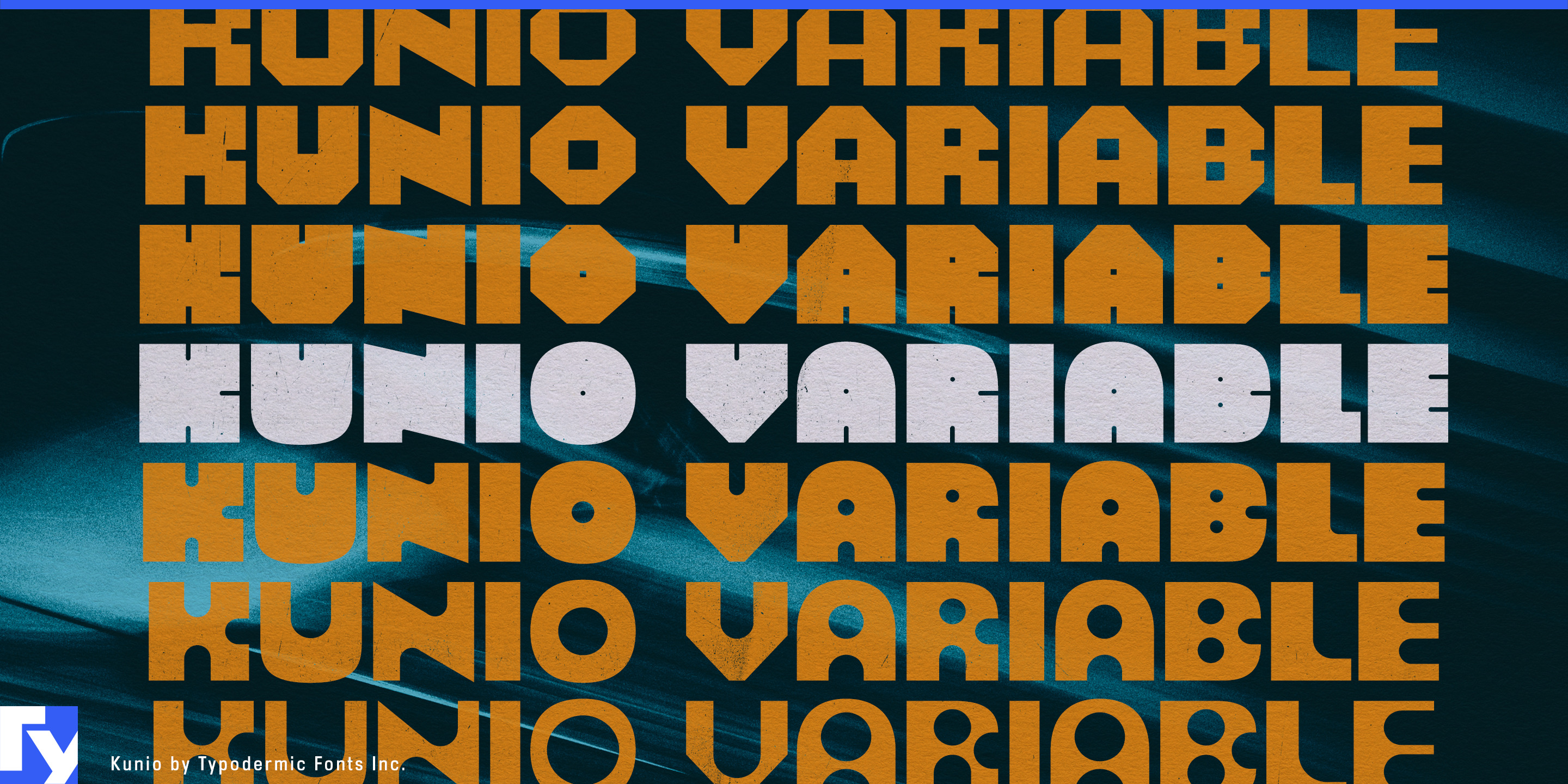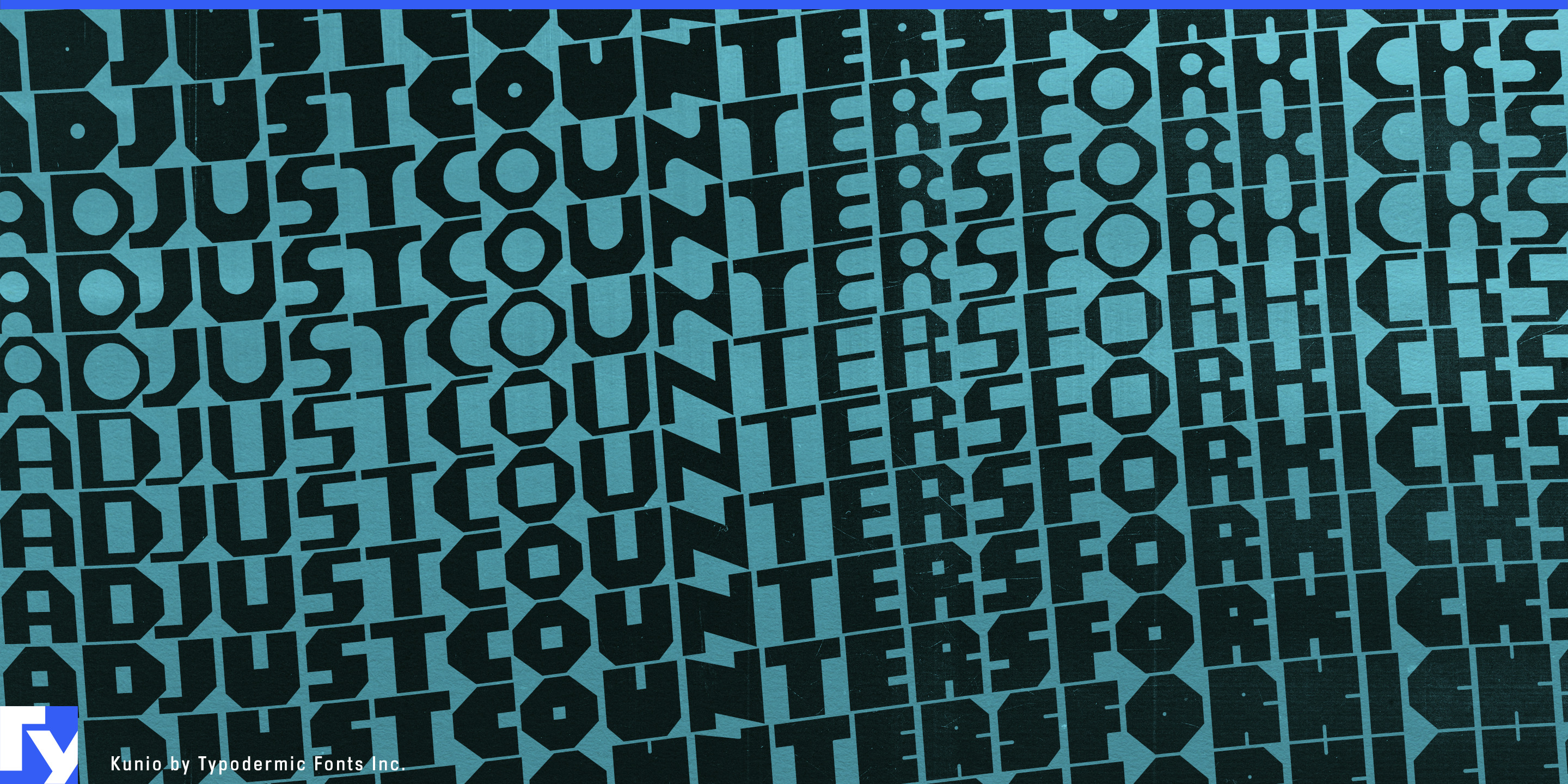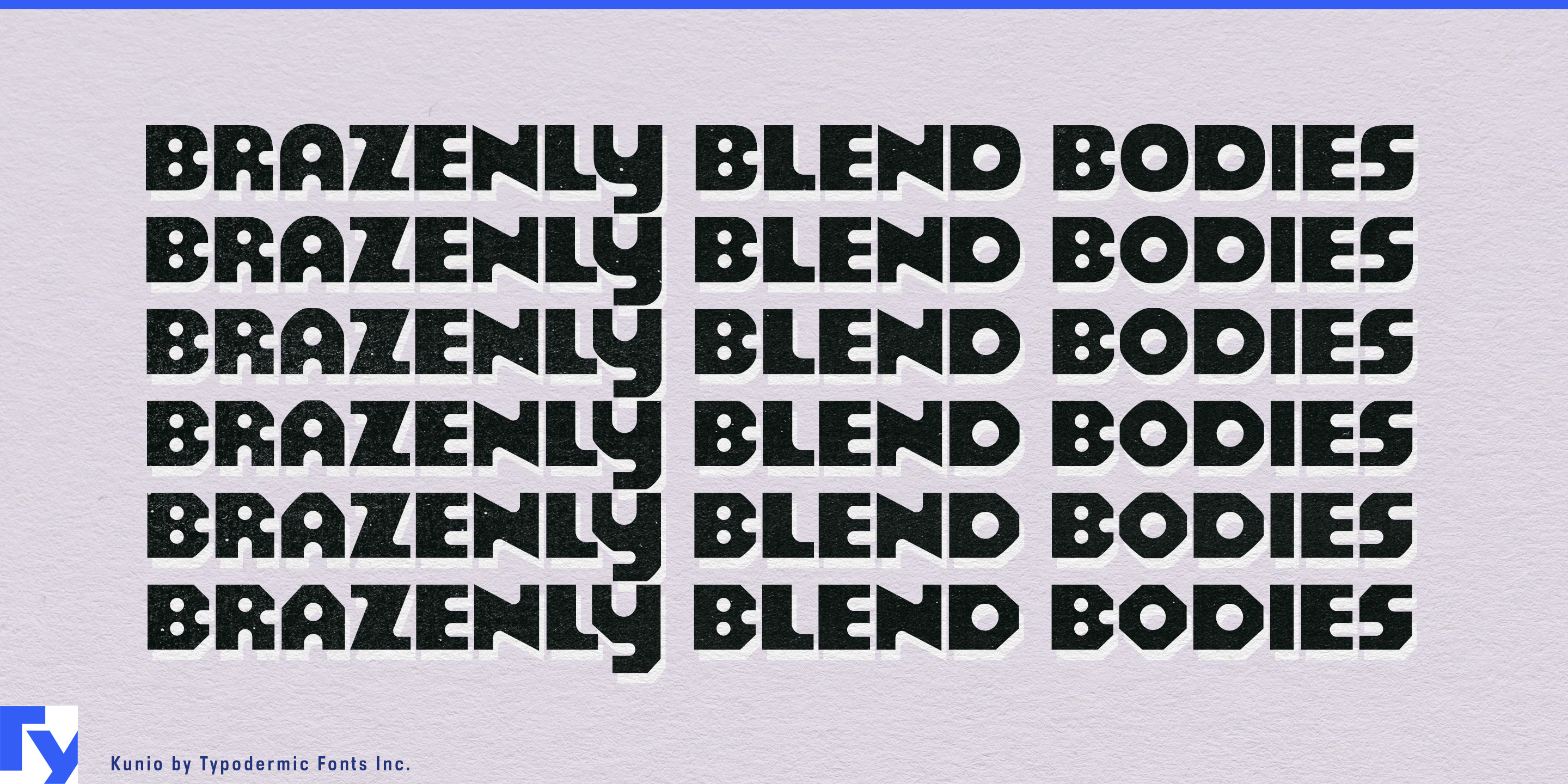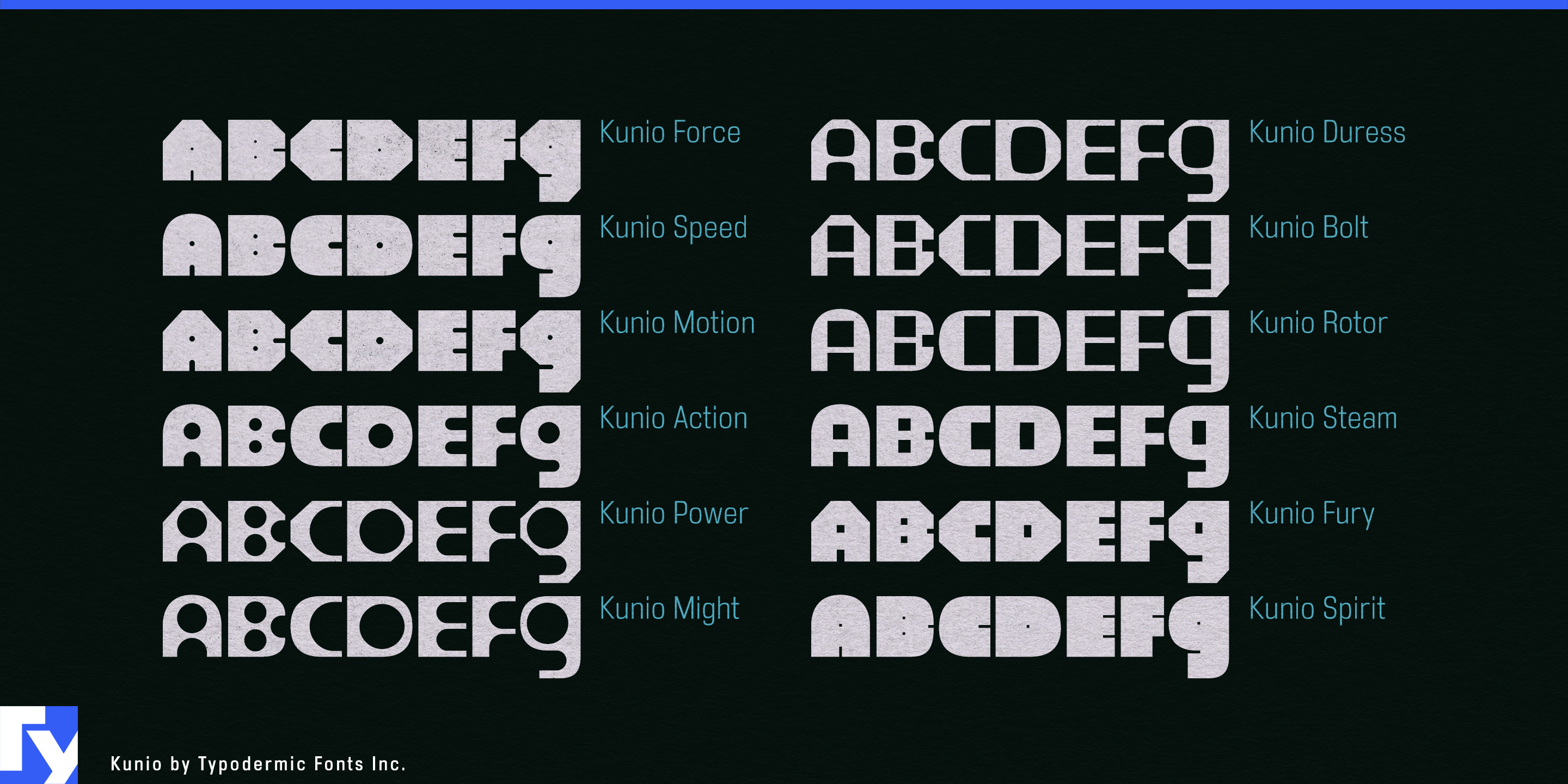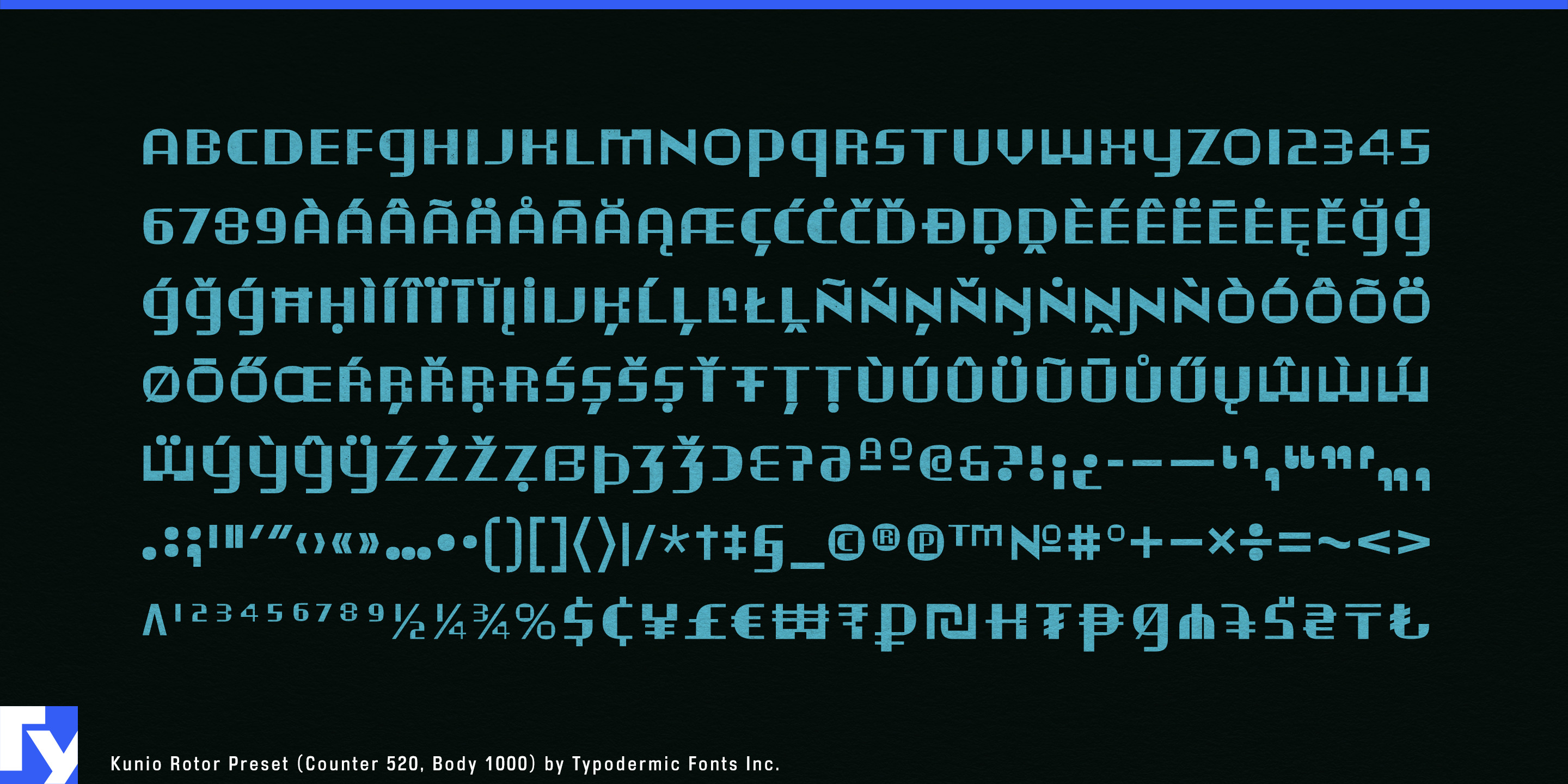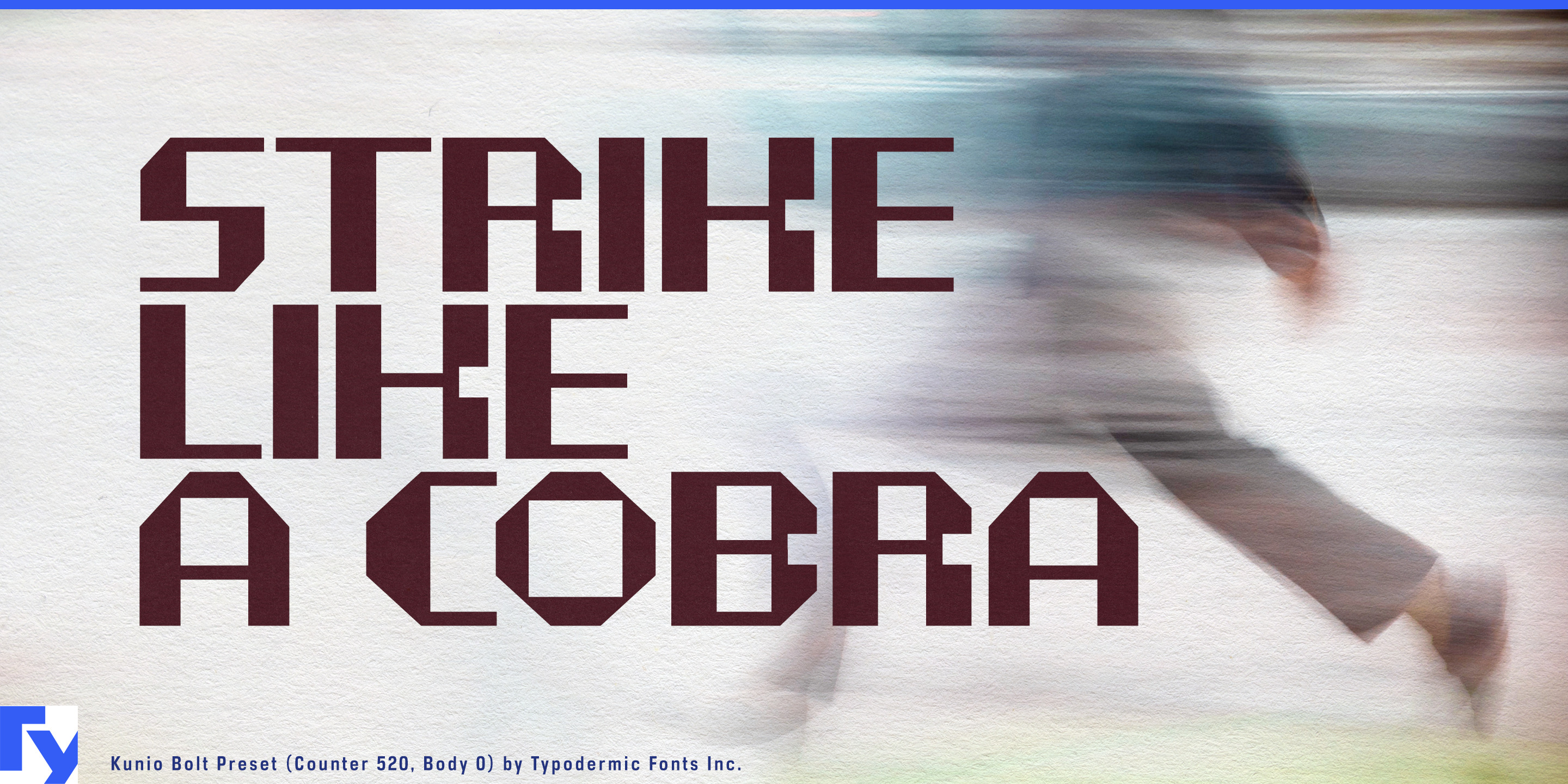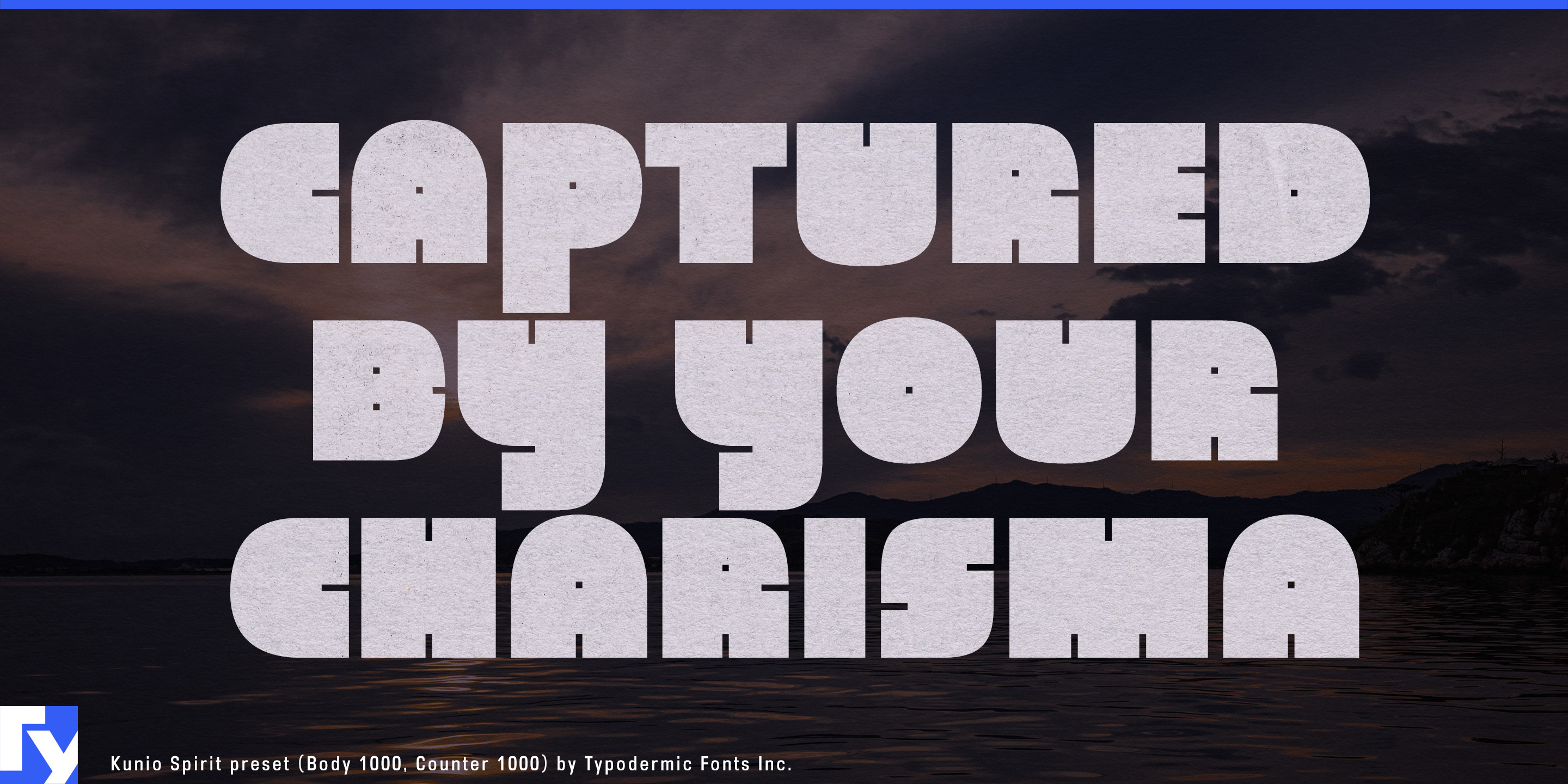
Kunio
Kunio is a unicase variable system for constructing related display alphabets. Its Body axis reshapes the outer construction of each character; Counter alters the openings within. Letters can move from open geometric frameworks to dense slabs pierced by tiny apertures. These are structural changes rather than conventional shifts in weight or width, allowing distinctly different configurations to retain the same geometric ancestry.
The named presets provide architectural, athletic, mechanical, rounded, and nearly pictographic starting points. From there, the axes can be tuned for a particular word or role. Tournament divisions, festival stages, conference tracks, exhibition rooms, product models, and game factions can each receive their own alphabet while remaining visibly connected to the larger identity.
In motion, Kunio can hollow out, close up, or rebuild itself across sports-broadcast stings, stage screens, music visualizers, countdowns, and title sequences. Its harder configurations suit jersey names, race numerals, equipment decals, sneaker model names, and performance-apparel graphics; denser settings form compact emblems, while open constructions create structural titles for architecture and design exhibitions.
Kunio is deliberately unicase: its uppercase and lowercase positions contain identical cap-height forms. It is built for names, titles, numerals, compact labels, model designations, and short commands; a quieter text face can handle schedules, descriptions, and other detailed information.
- Variable axes
- Counter (CNTR) 0–1000, Body (BODY) 0–1000